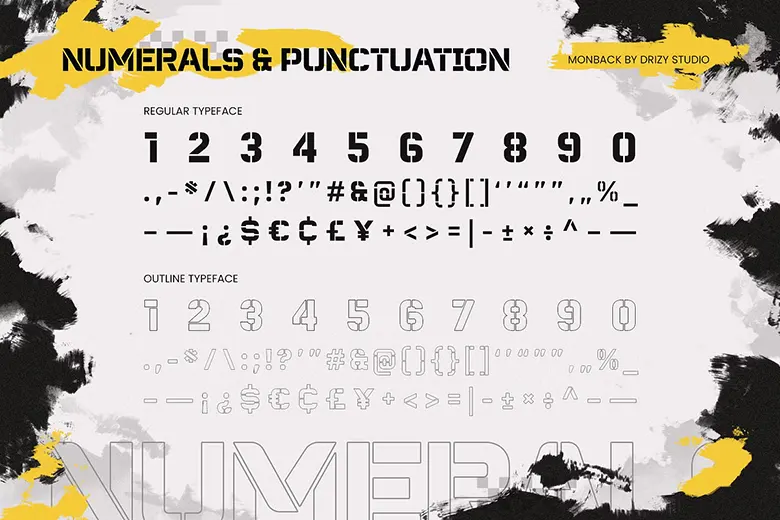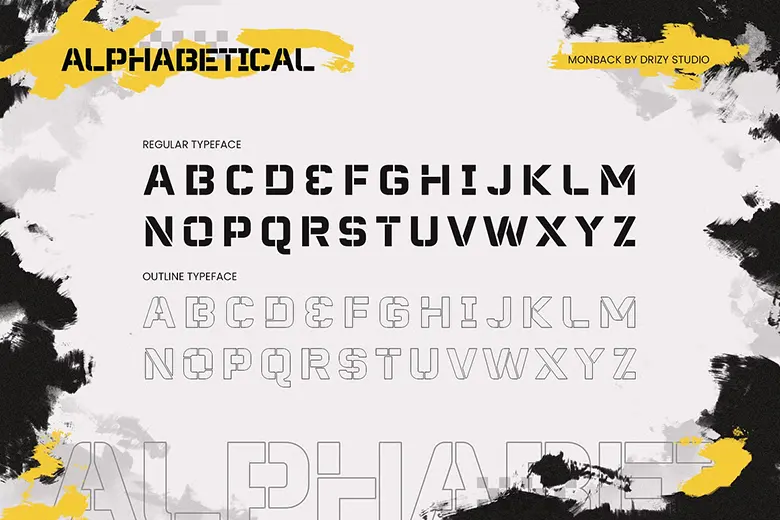
Monback is a cool, modern stencil font that mixes the classic look of stencils with a simple, clean style. It’s perfect for designers, artists, and anyone who loves creating things that grab attention and look amazing.
This font comes in two styles: Outline and Regular. It also includes numbers, punctuation, and supports many languages, so you can use it for all kinds of projects. Whether you’re making posters, logos, or fun art, Monback gives you lots of ways to be creative.
With its neat and stylish design, Monback helps your work stand out and look professional. It’s a great tool for making your ideas shine, whether you’re designing for fun or for work. Try Monback and see how it can take your projects to the next level!
Plus, its easy-to-read letters and unique stencil cuts make it perfect for anything from school projects to big creative designs. Monback is here to help you make something awesome!
Monback Display Font